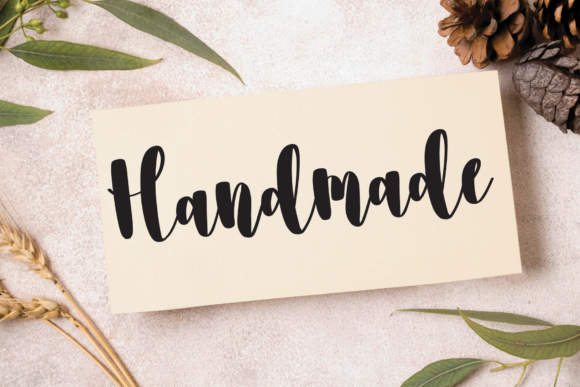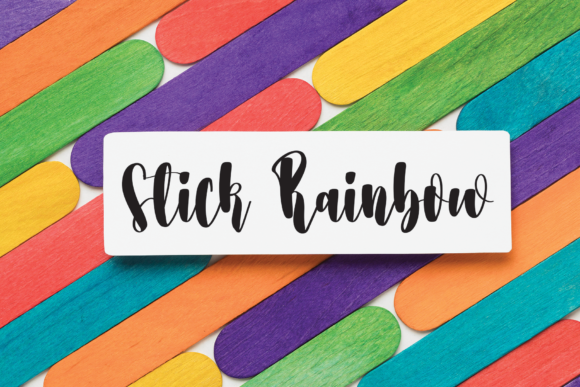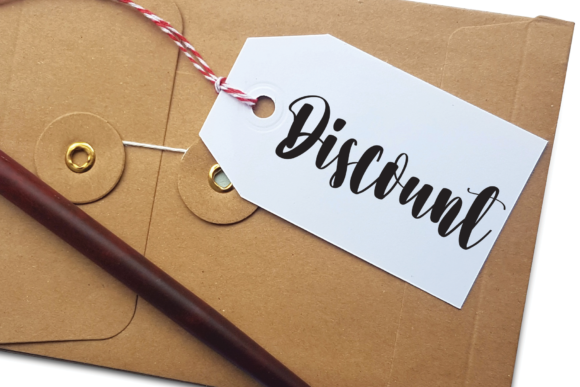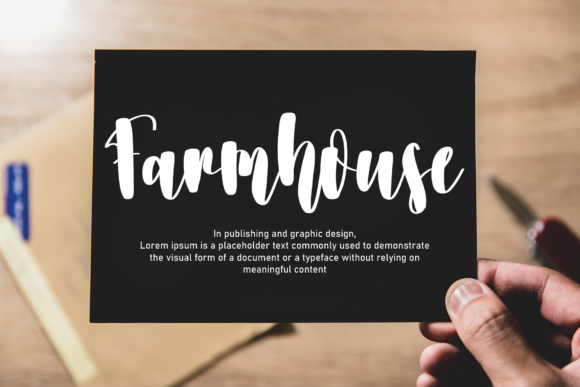
Handmade is a script handwriting creative font, perfect for branding purposes, advertising, poster design, book covers, headlines, prints, merchandise, websites, magazine, album covers, quote designs, and much more!